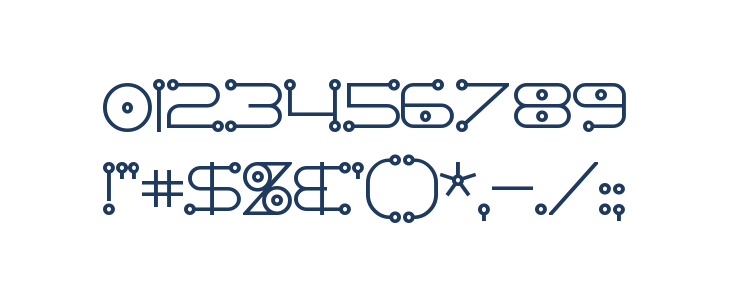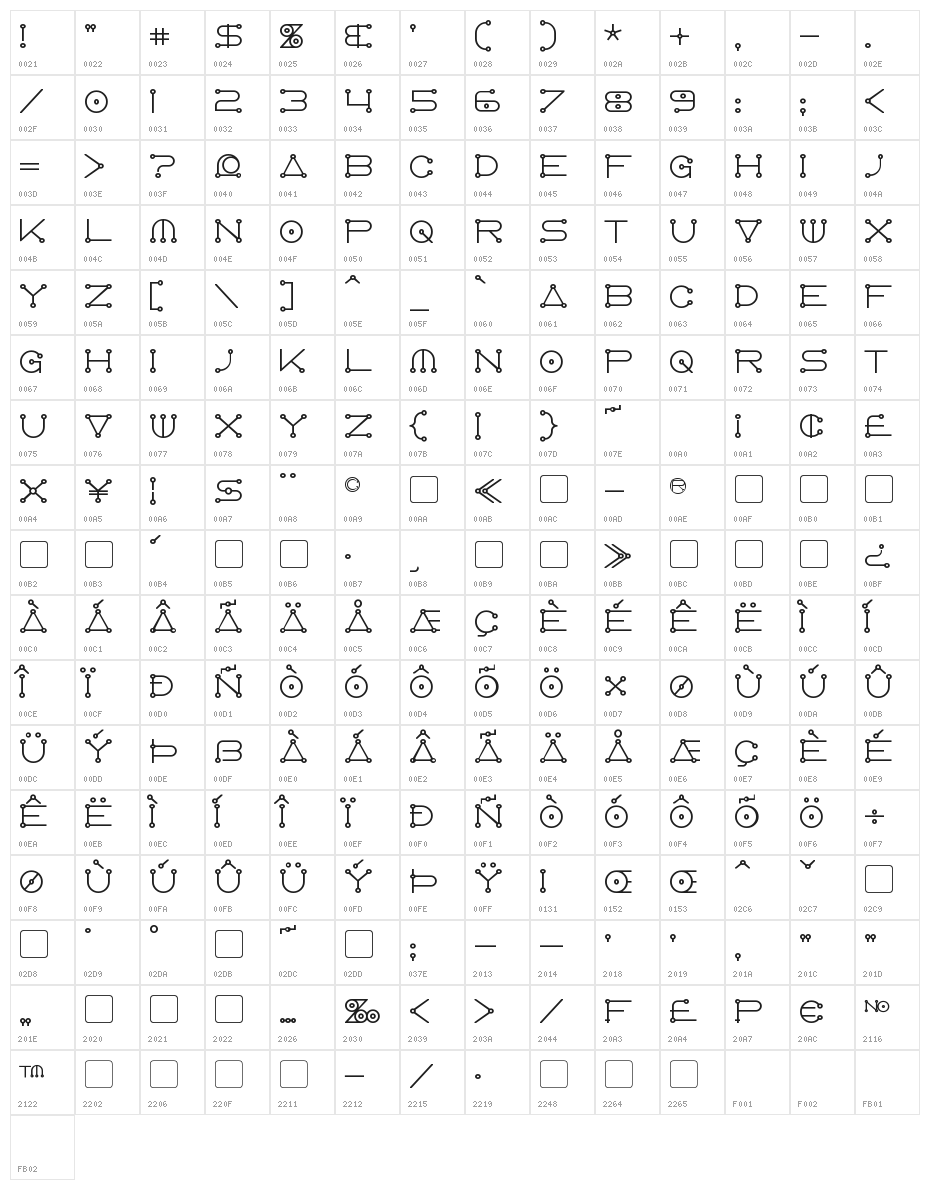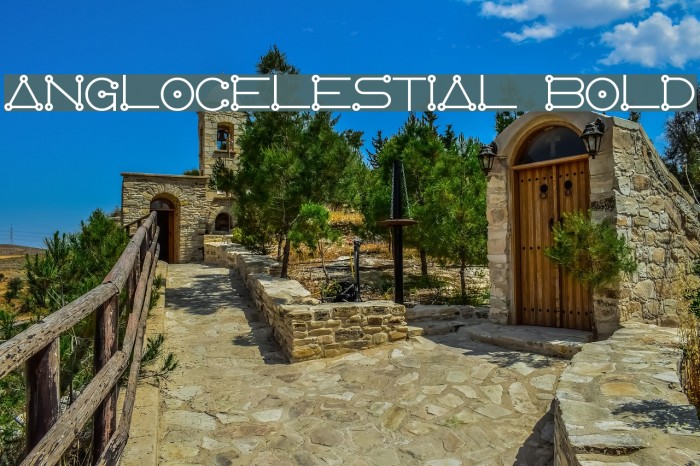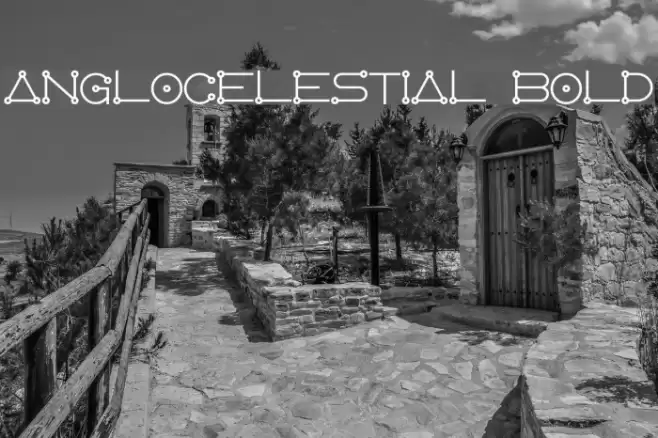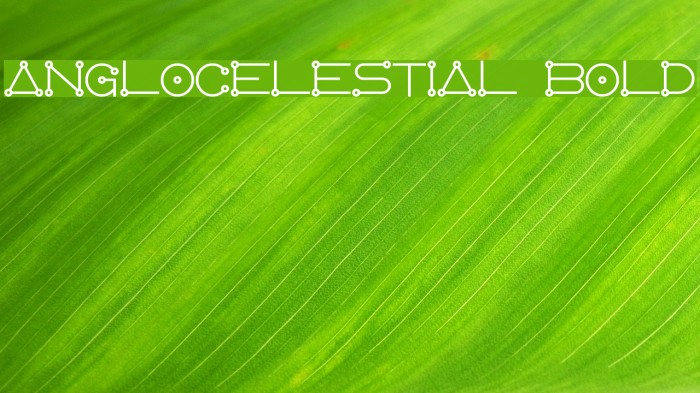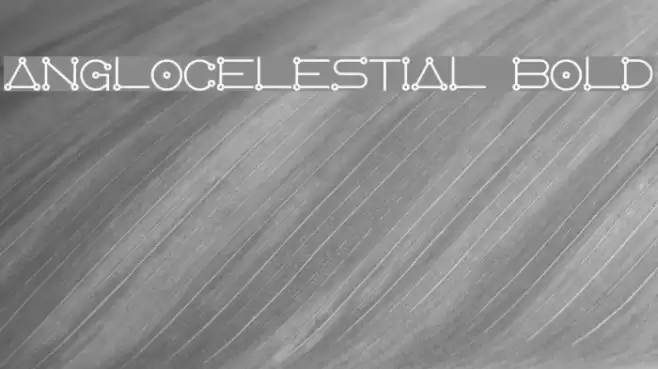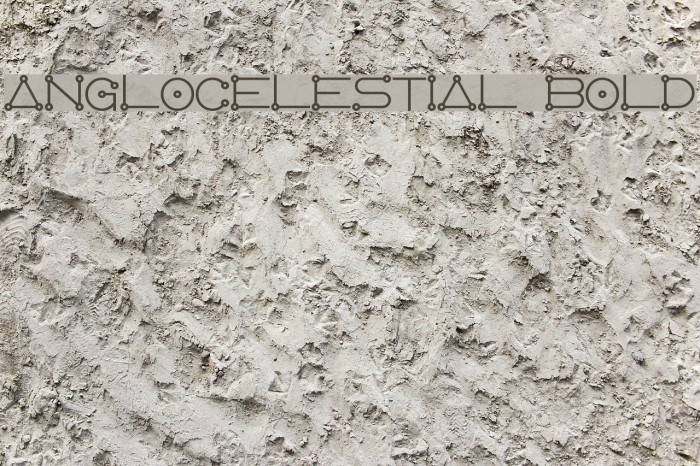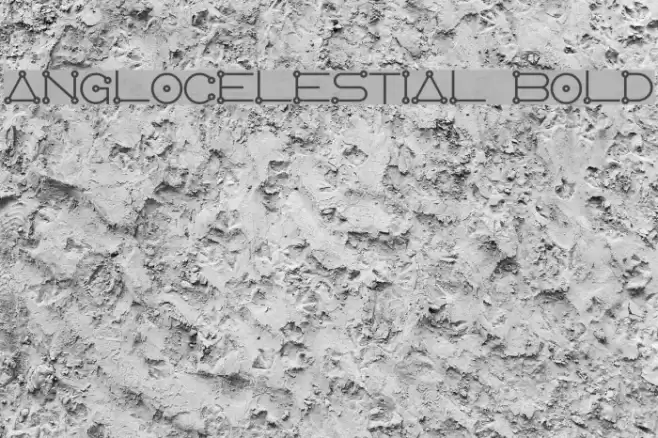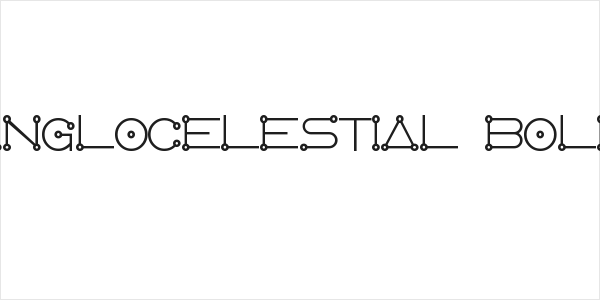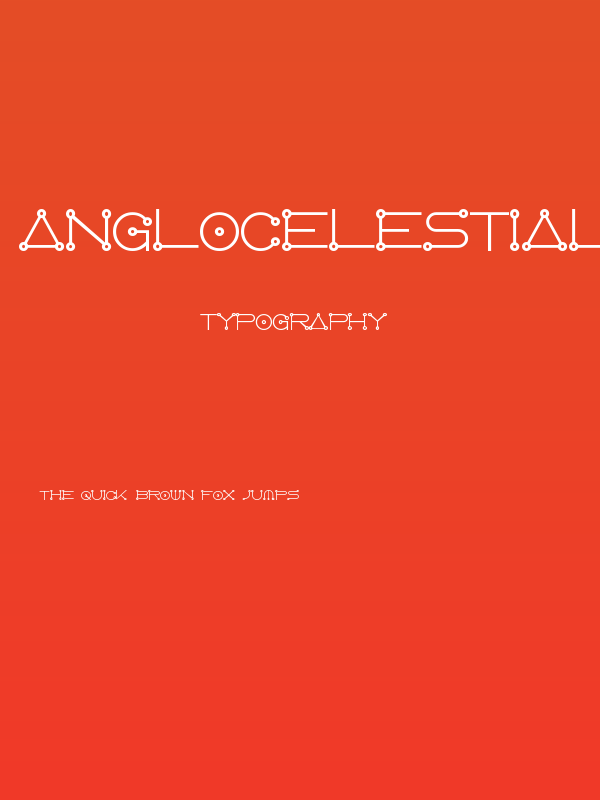
AngloCelestial Bold Font
AngloCelestial Bold Description
This font features a futuristic and geometric design, characterized by its use of circular nodes and connecting lines. Each character is constructed with a series of dots and straight lines, creating a circuit-like appearance. The uppercase and lowercase letters maintain a consistent style, with the same structural elements applied throughout. Numbers and special characters follow the same design principles, ensuring uniformity across the set. The font's unique aesthetic makes it stand out, offering a modern and technological feel.
| Proposed Projects | Ideal for tech-themed projects, sci-fi book covers, digital art, and innovative branding. |